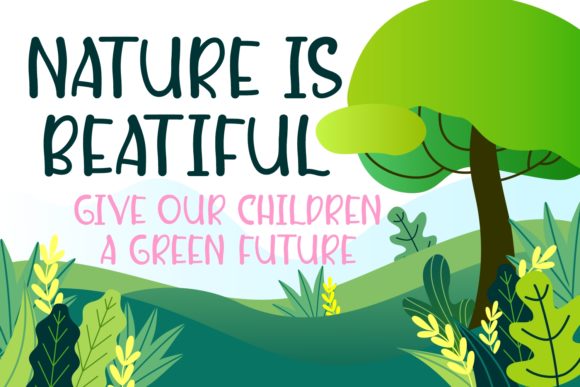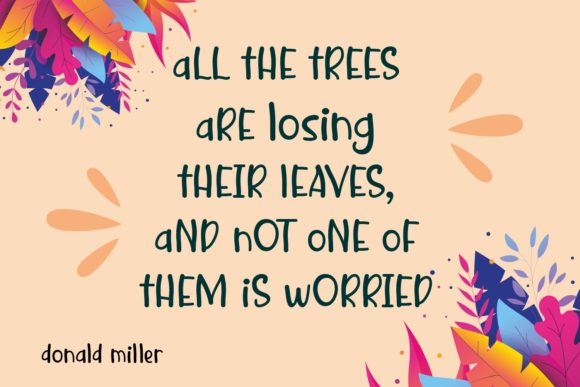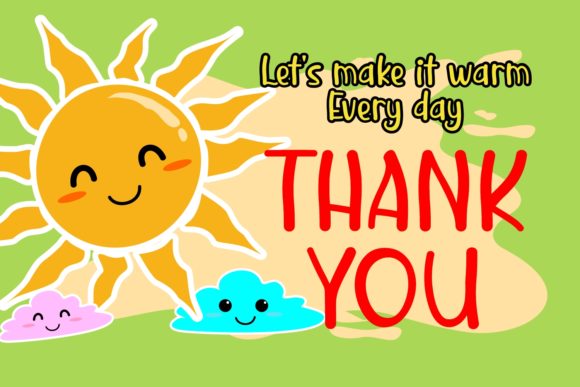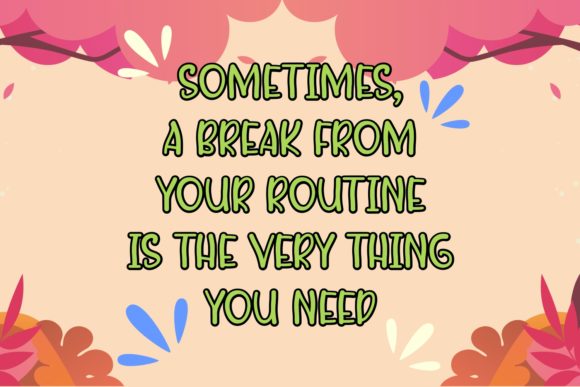
Introduction to Kwacyland Font
Have you ever stared at a blank canvas, eager to bring your creative vision to life, only to be stuck on the perfect font to set the tone for your project? For designers, finding the right font can be the difference between a great idea and a masterpiece. This is where the Kwacyland Font comes in – a friendly and playful handwritten font that’s about to become your new go-to design resource.
With its high-quality, unique style, the Kwacyland Font is a treasure trove of creative possibilities. Whether you’re working on a free download project or a commercial design, this versatile font is sure to add a touch of personality to your work. Plus, with a transparent background, you can easily layer it with other design elements to create a truly stunning visual effect.
Key Features of Kwacyland Font
- High-quality font designed for creative projects, offering a unique and distinctive look.
- Includes a range of characters, including uppercase and lowercase letters, numbers, and special symbols.
- Perfect for designers looking for a unique and creative font to elevate their design projects.
Honest Review: Kwacyland Font
I recently stumbled upon the Kwacyland Font and decided to give it a try for my creative project. I must say, I was quite impressed with the high quality of this design resource. The font’s unique style and clean lines make it perfect for a variety of design applications.
One of the things I appreciate most about the Kwacyland Font is its versatility. It can be used for both digital and print projects, and its transparent background makes it easy to combine with other design elements. ✨ I also appreciate that it’s available for free download, which is always a bonus.
- High-quality design with clean lines and unique style
- Transparent background for easy combination with other elements
⚠️ However, I do think that the font could benefit from a few more weight options to give designers more flexibility. Additionally, some users may find the font’s style a bit too quirky for certain projects.
Overall, I’m quite impressed with the Kwacyland Font and would definitely consider using it for future creative projects. Its high quality and versatility make it a valuable addition to any designer’s toolkit.
Tips for Getting the Most Out of Kwacyland Font
To get the most out of the Kwacyland Font, experiment with different font sizes, colors, and combinations. This will help you unlock the full potential of this design resource and create unique and eye-catching designs.
The Kwacyland Font is ideal for a variety of creative projects, including branding, marketing materials, and digital designs. Its high-quality design and transparent background make it a versatile and reliable design resource.